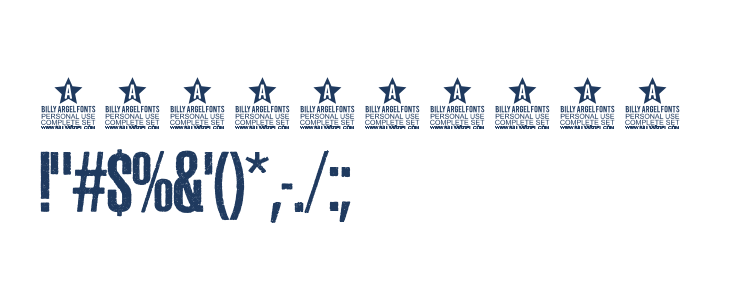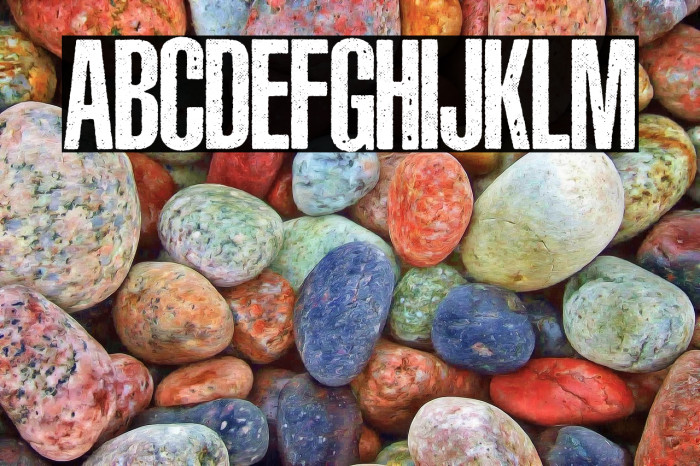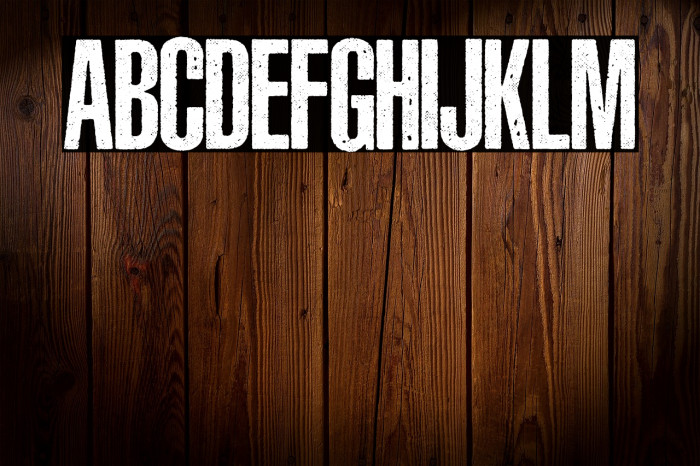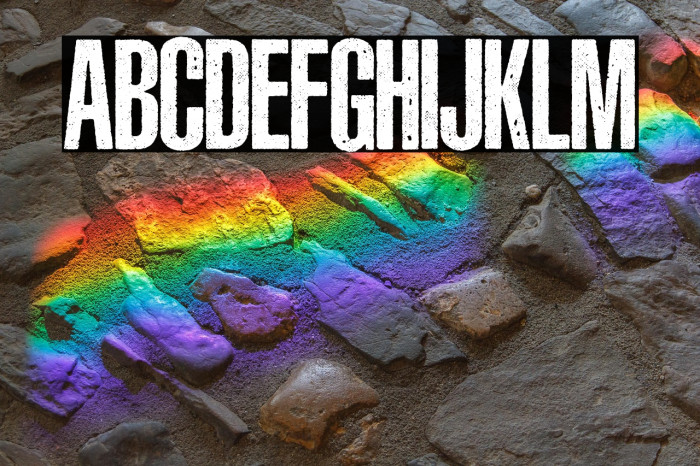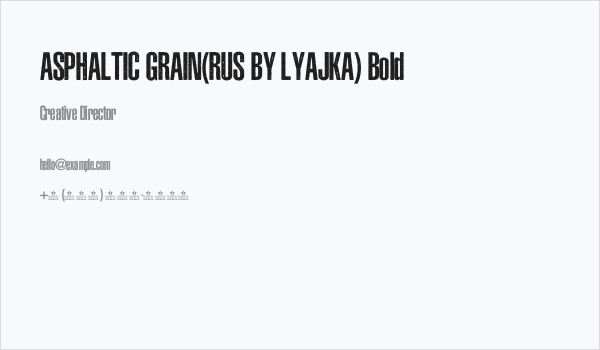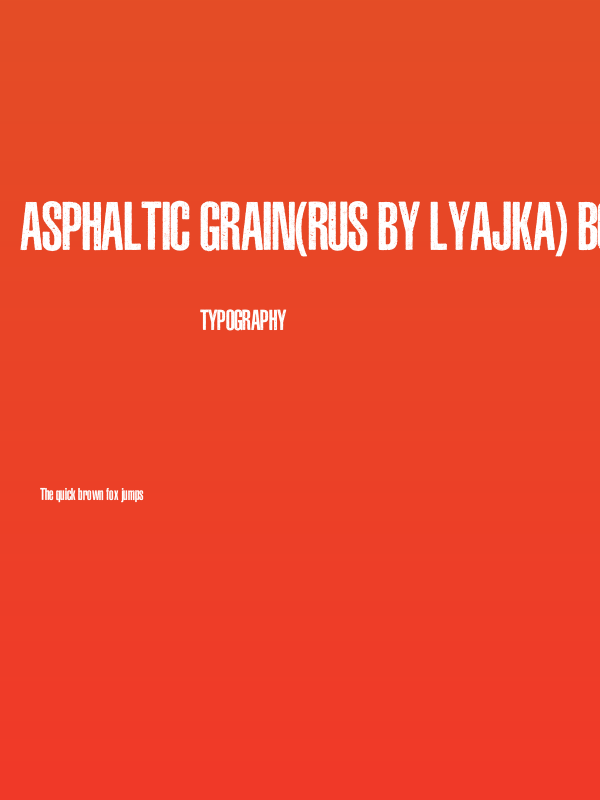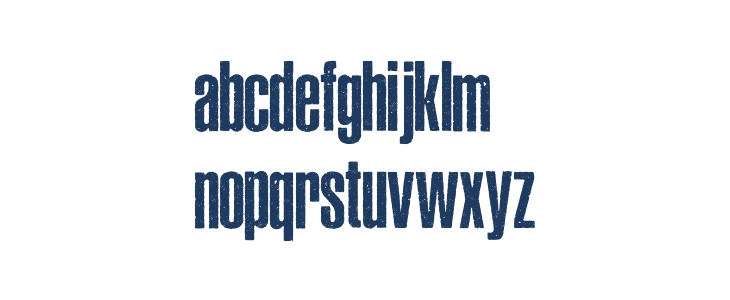
ASPHALTIC GRAIN(RUS BY LYAJKA) Bold Font
ASPHALTIC GRAIN(RUS BY LYAJKA) Bold Description
This font features a bold and rugged style with a distressed texture that gives it a gritty, urban feel. The uppercase and lowercase letters are uniformly bold, with a consistent width that maintains readability while adding a strong visual impact. The characters are slightly condensed, enhancing the boldness and making it suitable for attention-grabbing headlines. The texture adds a vintage, worn-out look, reminiscent of old signage or printed materials. The numbers and special characters follow the same bold and textured style, ensuring consistency across all elements. This font's unique aesthetic makes it ideal for projects that require a touch of edginess and character.
| Proposed Projects | Ideal for posters, album covers, branding, and any design needing a bold, gritty aesthetic. |